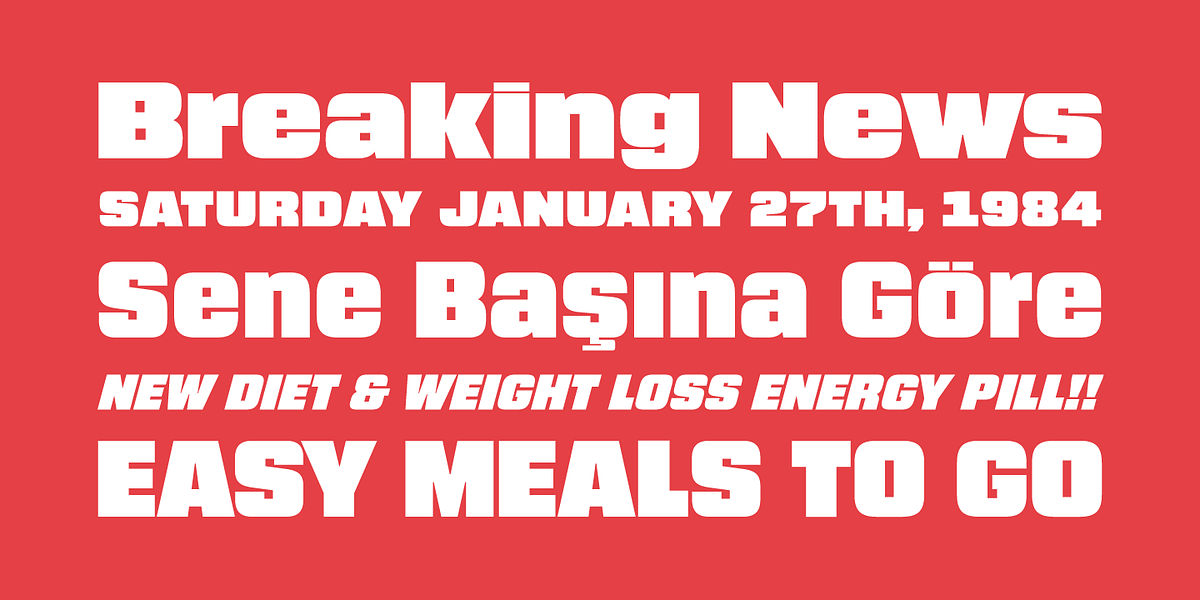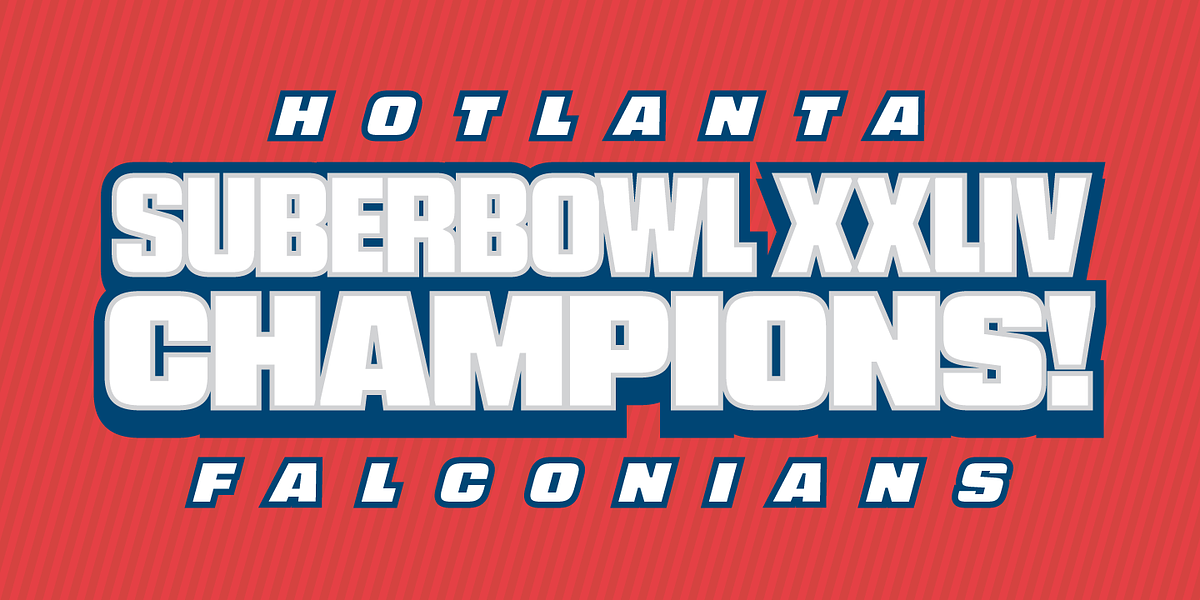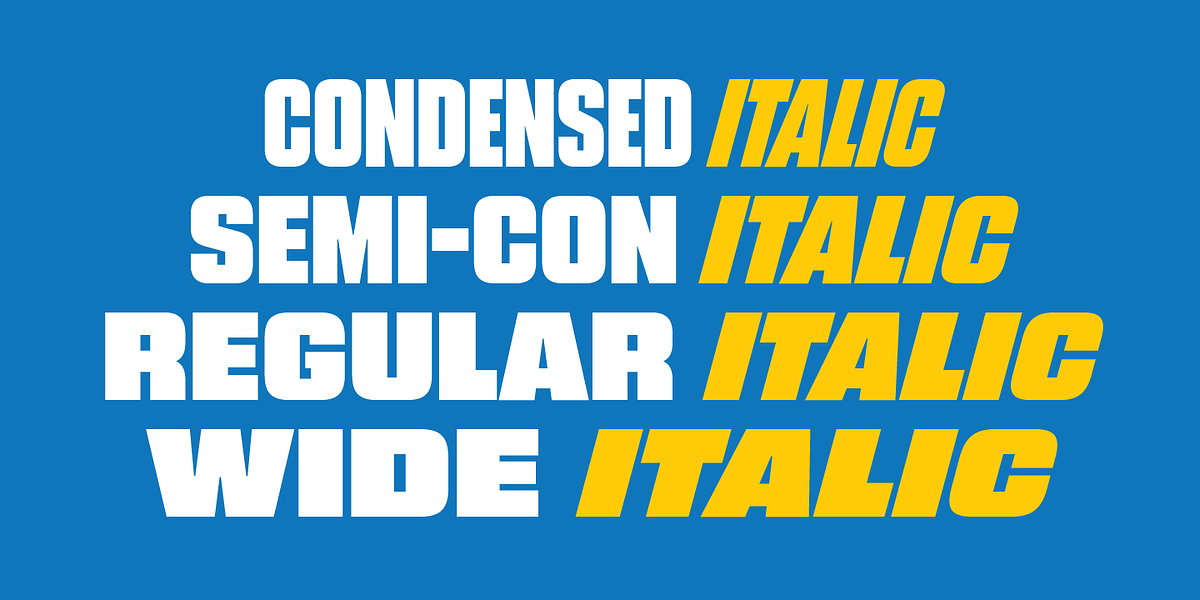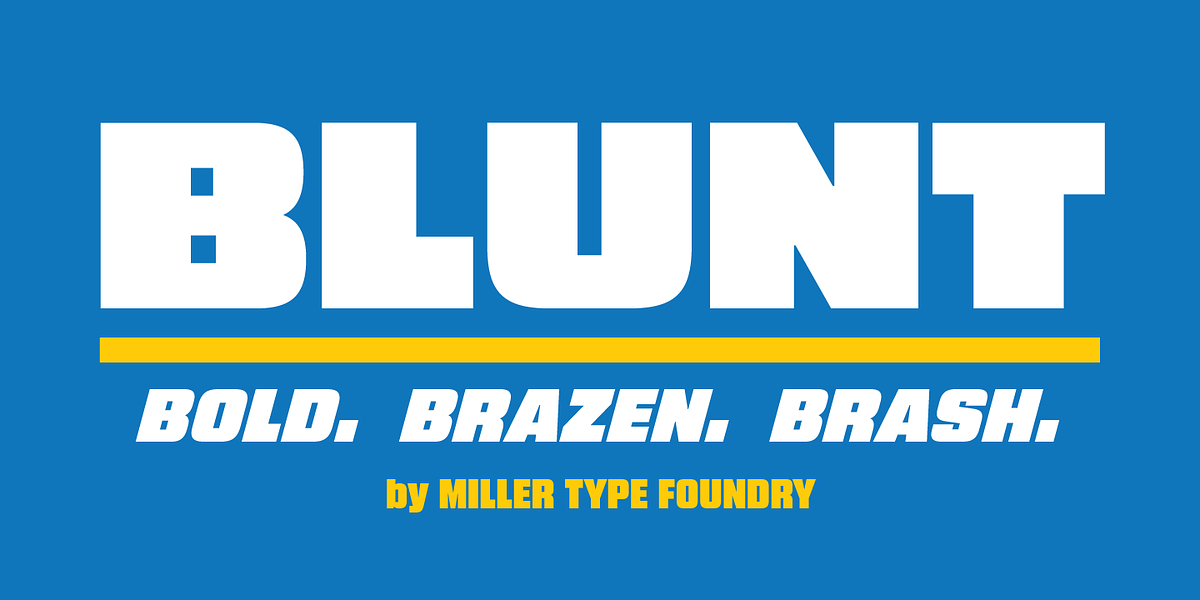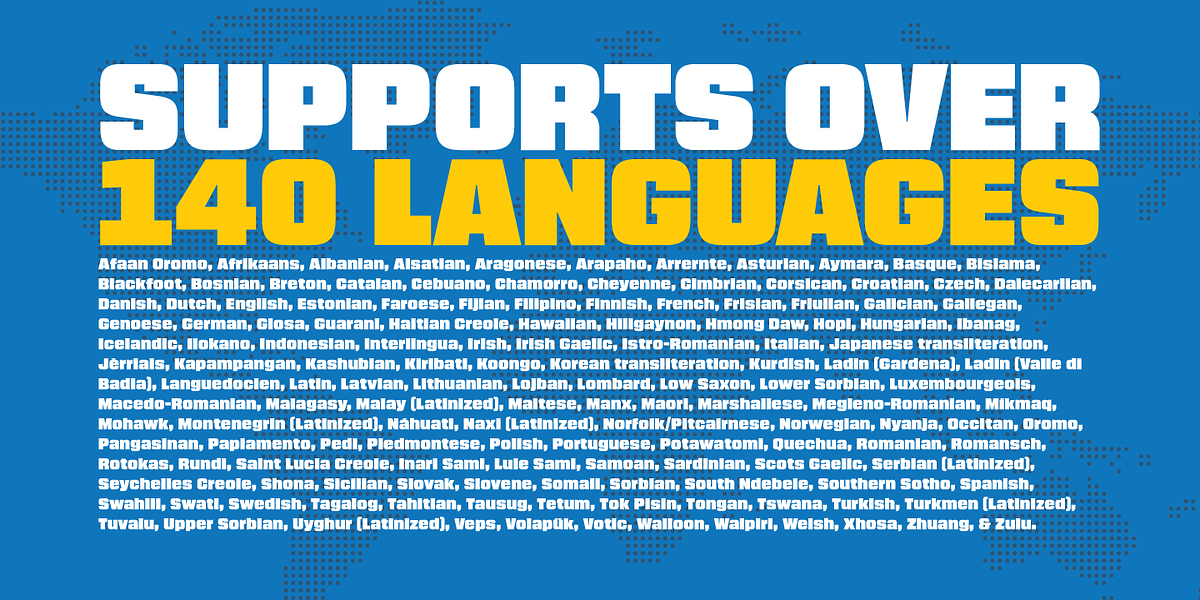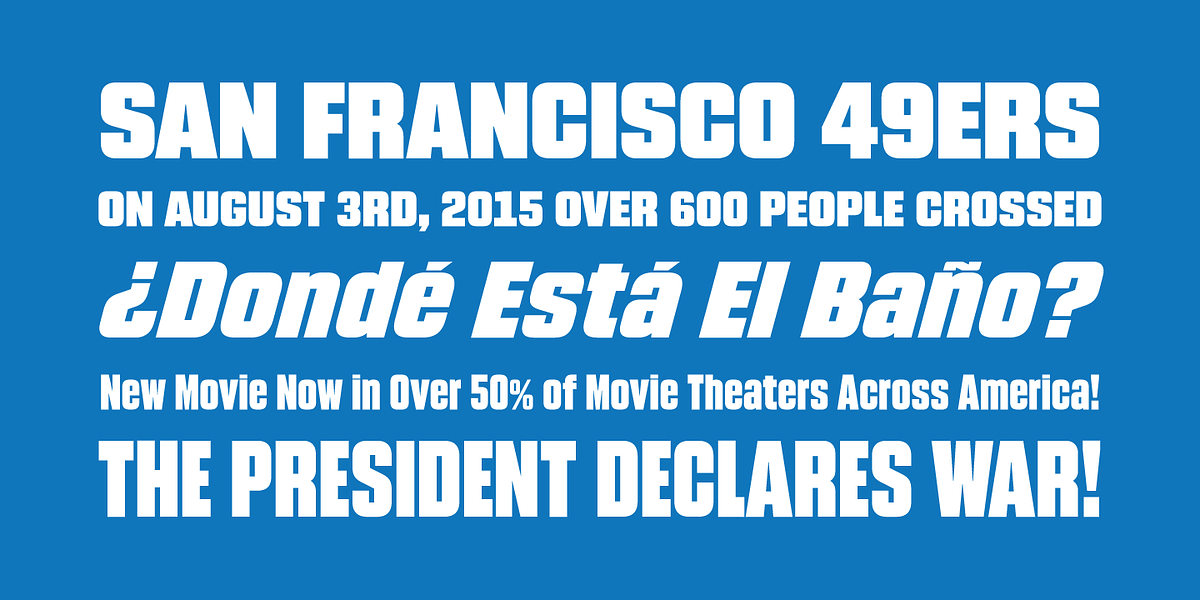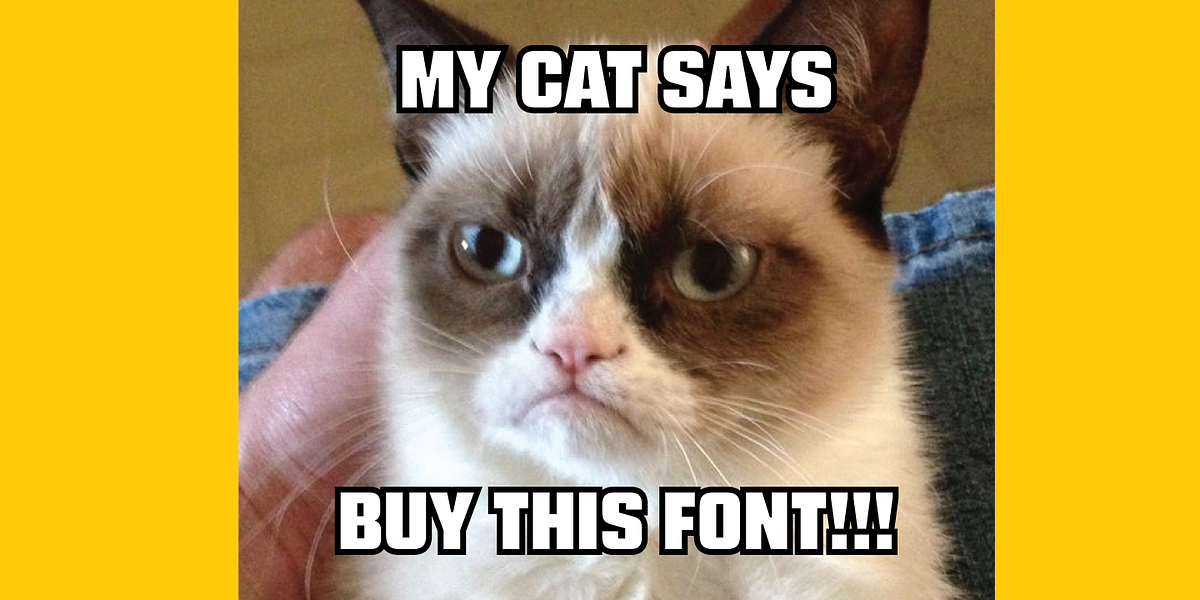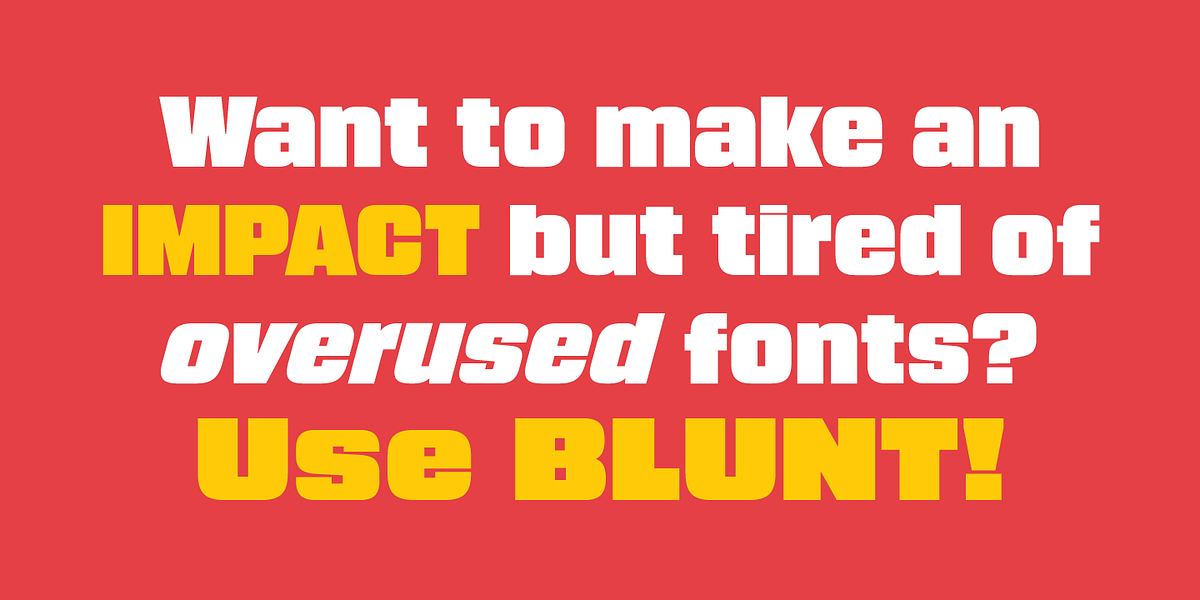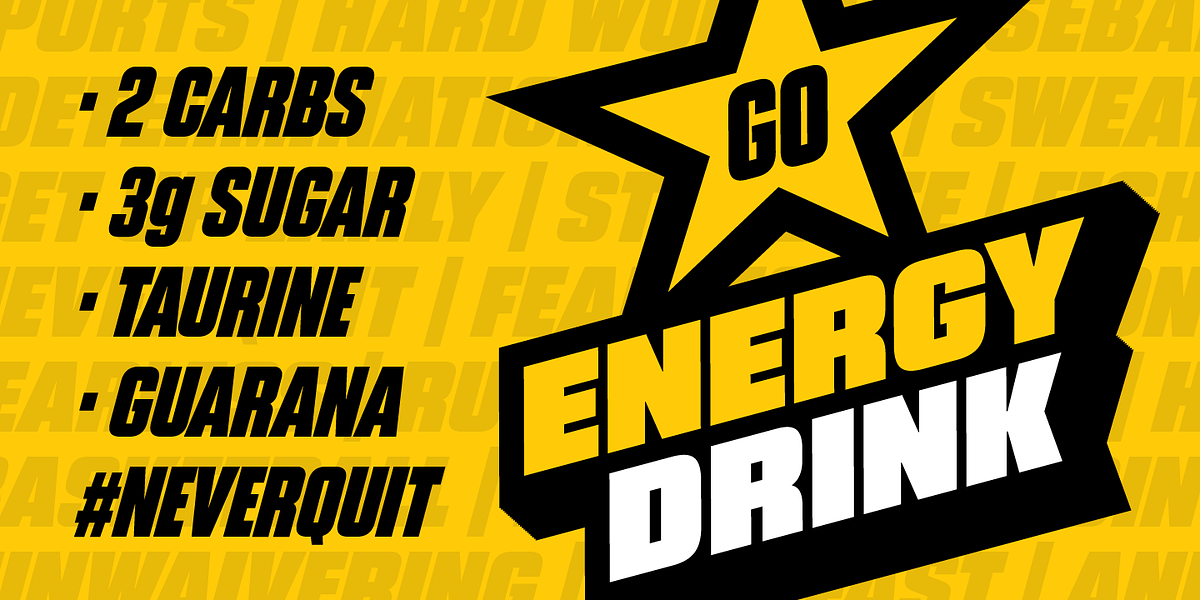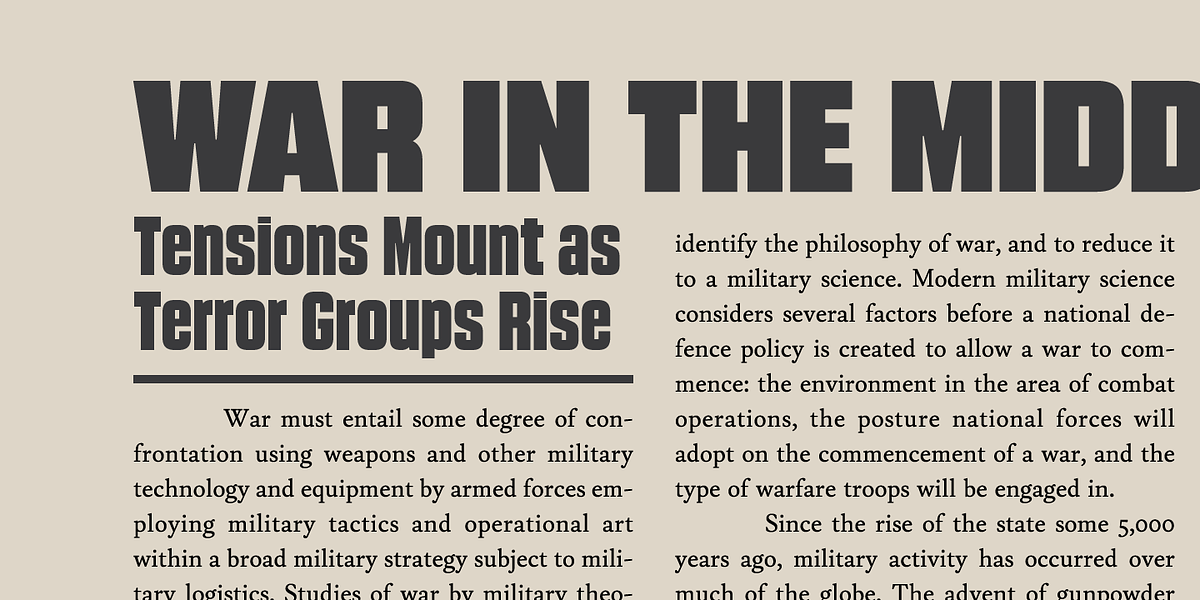
Blunt
Blunt is a bold sans serif typeface designed specifically for headlines. It offers versatility with four weights ranging from condensed to wide, each accompanied by matching italic styles. This makes Blunt suitable for a variety of headline applications.